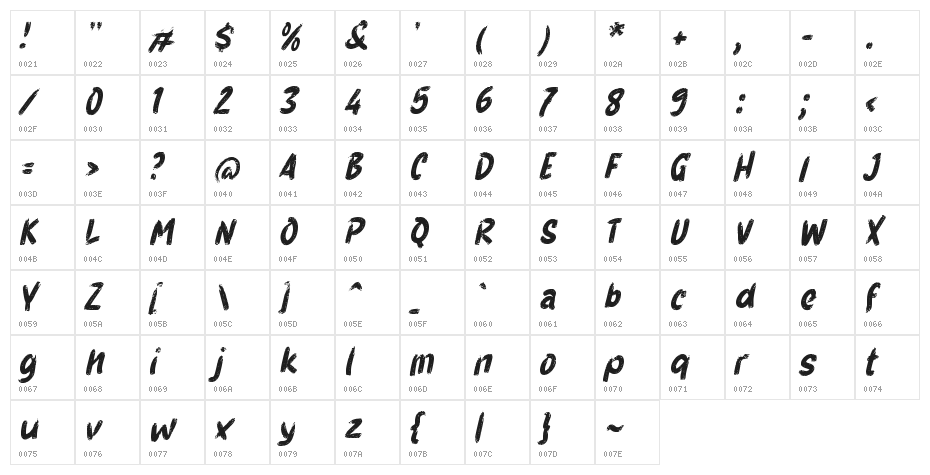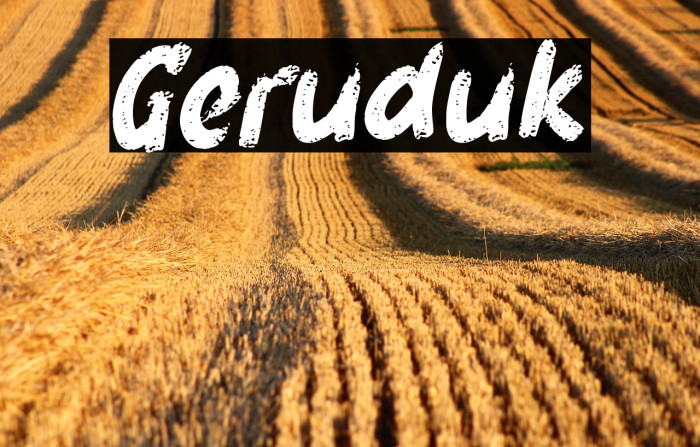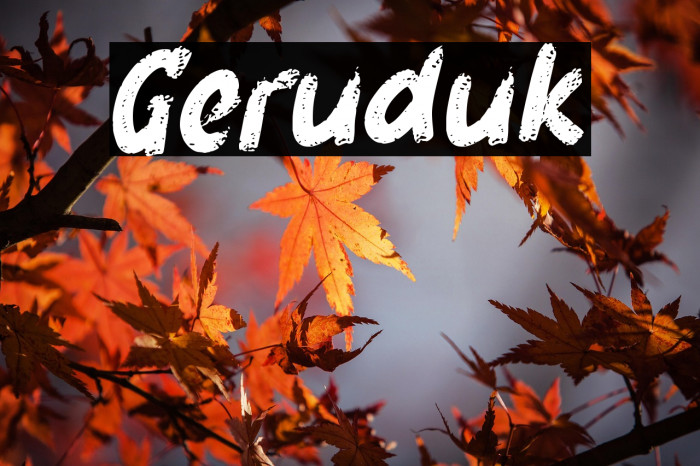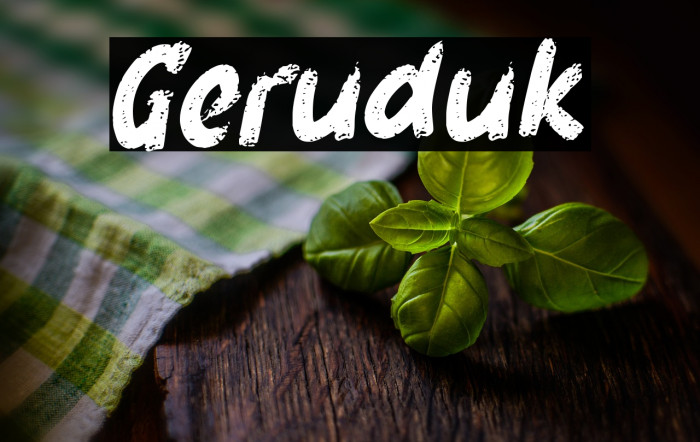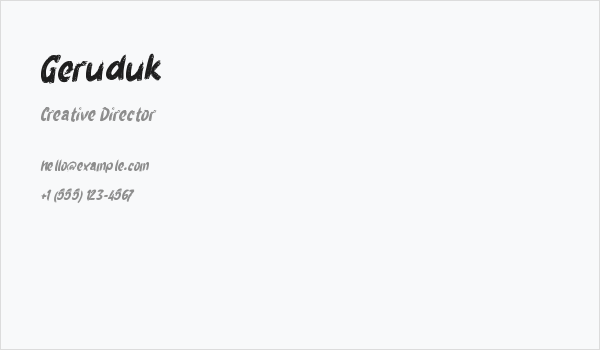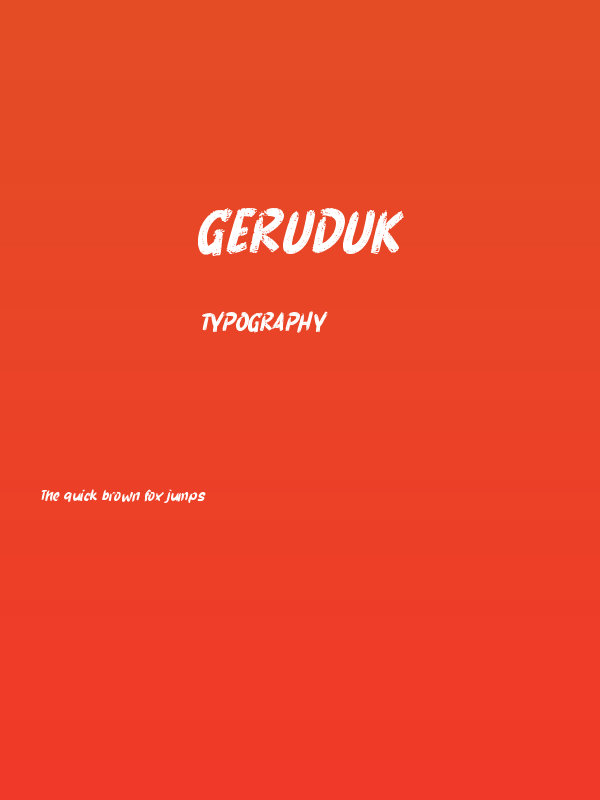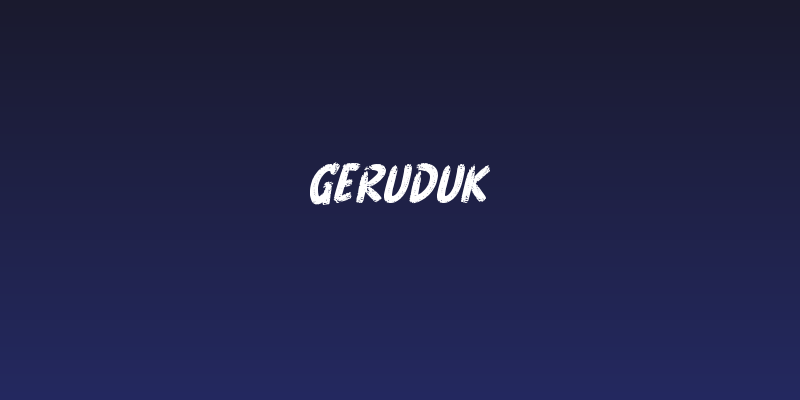
Geruduk Font
Geruduk Description
This font features a bold and dynamic brush script style with a distressed texture that gives it a rugged and edgy appearance. The letters are slightly slanted, adding a sense of movement and energy. The uppercase and lowercase characters maintain a consistent style, with rounded edges and a hand-painted look. The numbers and special characters follow the same aesthetic, ensuring uniformity across all elements. This font's unique texture and bold strokes make it stand out, perfect for projects that require a strong visual impact.
| Proposed Projects | Ideal for posters, branding, merchandise, and any design needing a bold, artistic touch. |